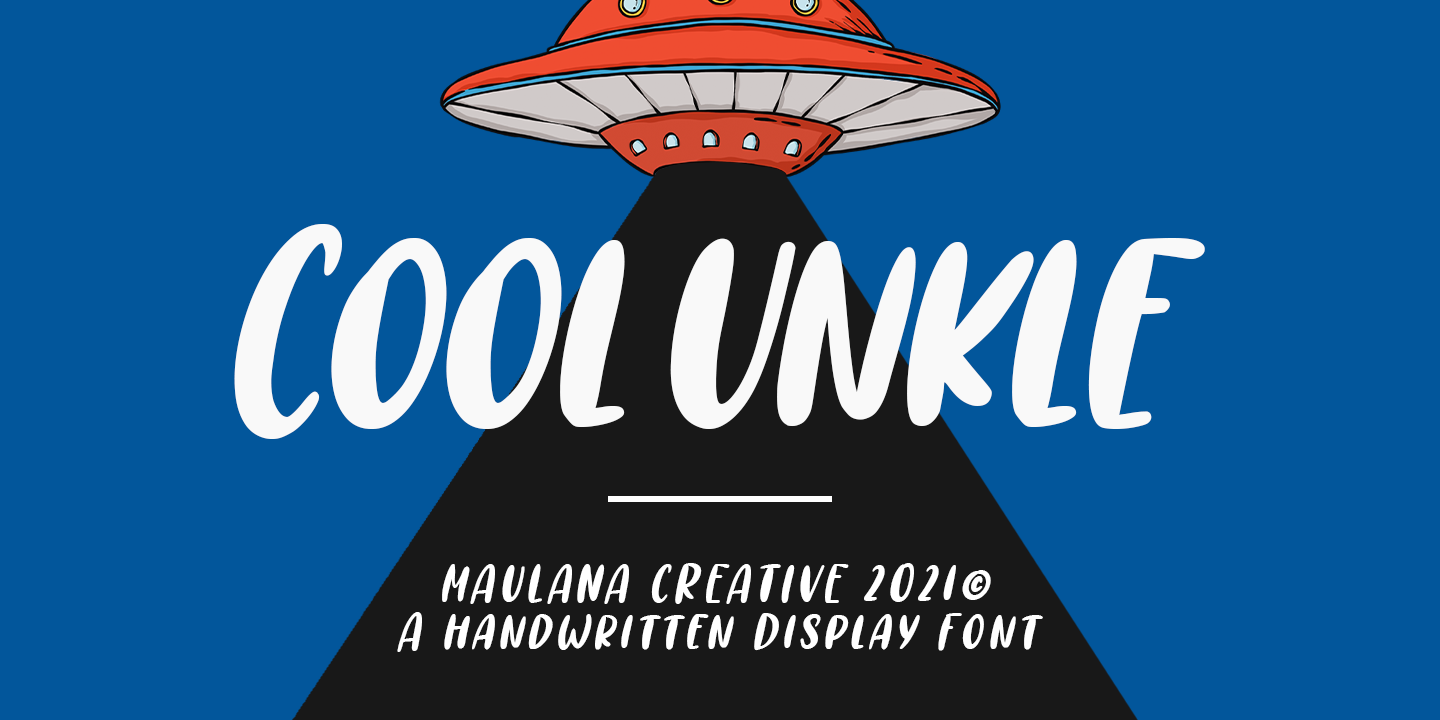
Cool Unkle Font is perfect for trendy streetwear brands, hip skateboard company logos, cool youth marketing campaigns, laid-back café signage, casual gaming projects, relaxed lifestyle blogs, fun social media content, chill music festival materials, and easygoing brand identity. This relaxed typeface brings effortless coolness and casual sophistication to both digital and print design applications.
Cool Unkle Font is exciting because it embodies the effortless charm and relaxed confidence of authentic cool culture, making it an exceptional choice for designers who want to convey laid-back appeal with genuine casual sophistication. Its relaxed letterforms and cool character provide the perfect combination of casual elegance and functional versatility, ensuring your projects communicate coolness, approachability, and relaxed excellence that resonates with audiences seeking genuine casual experiences and effortless style.
The Cool Unkle Font family includes casual weight variations and cool elements, featuring light, regular, and bold weights with complementary relaxed styles, laid-back ligatures, and chill decorative touches. Each style maintains consistent cool aesthetics while offering flexibility for different casual applications, allowing designers to create effortless visual systems that reflect relaxed values and casual sophistication.
Whether you're designing for lifestyle brands, casual entertainment companies, or relaxed projects, Cool Unkle Font Free Download delivers authentic cool appeal and casual sophistication that connects with audiences seeking genuine relaxed experiences and effortless style. This premium typeface offers designers the laid-back charm and cool elegance needed to create designs that communicate casual excellence, relaxed confidence, and cool authenticity effectively. The font's chill character makes it perfect for casual branding, relaxed campaigns, and cool applications where authentic laid-back credibility is essential. Download Cool Unkle Font today and chill out your creative projects with genuine cool sophistication and relaxed typography excellence that defines casual design standards.